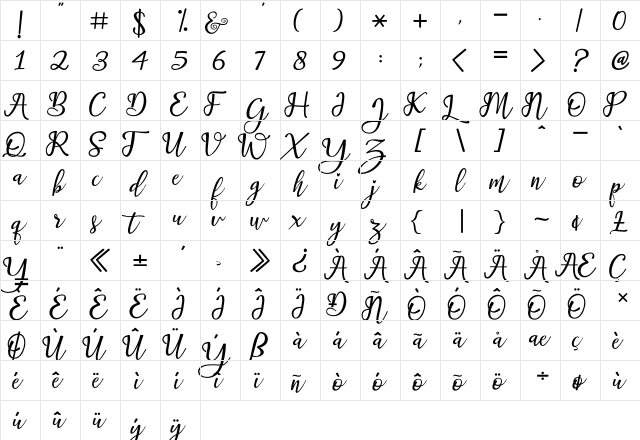
Astra Regular
Design Context for Astra Typeface
Astra is a composed and adaptable typeface that performs quietly and consistently across a wide range of design contexts.